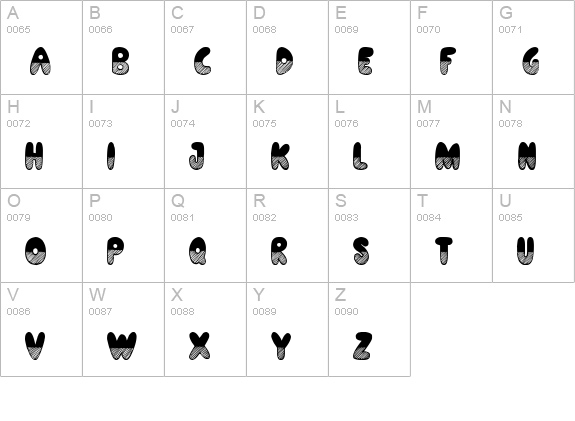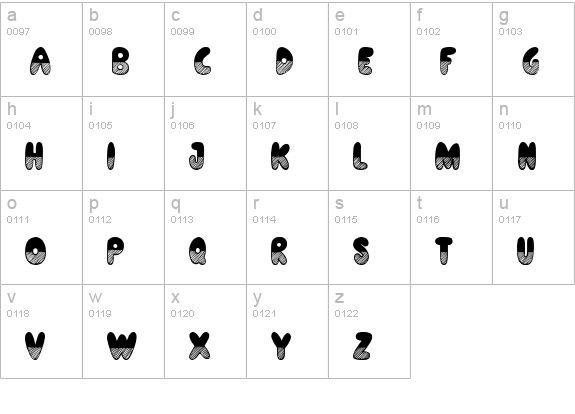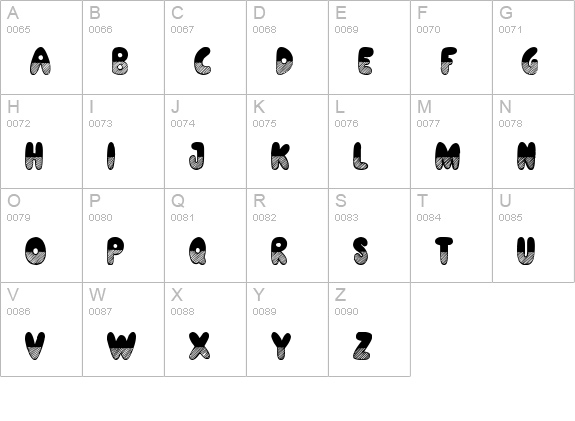
Shades of Grey Font Details
Shades of Grey font is a captivating and versatile typeface that exudes elegance and sophistication. With its sleek and modern design, this font seamlessly blends contemporary aesthetics with timeless charm. Its unique letterforms effortlessly capture attention and add a touch of class to any creative project. This font offers a wide range of shades, from light to dark, allowing you to create stunning typographic compositions with depth and character. Whether you're designing a logo, crafting a website, or working on a branding project, Shades of Grey font will elevate your designs to new heights. One of the best things about Shades of Grey font is that it is available for free download at FontsMarket.com. This means that you can unleash your creativity without worrying about any extra costs. By downloading this font, you not only gain access to a versatile typographic tool but also save money in the process. So why wait? Embrace the beauty of Shades of Grey font and let your imagination run wild. With its free availability at FontsMarket.com, there's no reason not to give your designs the touch of sophistication they deserve. Download Shades of Grey font today and take your creative endeavors to the next level.